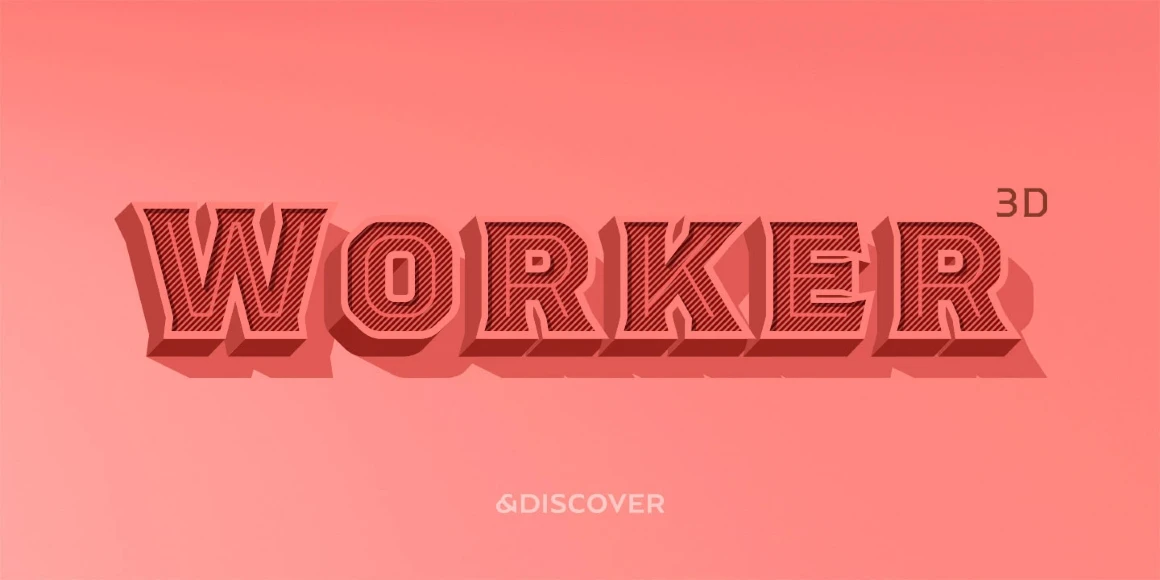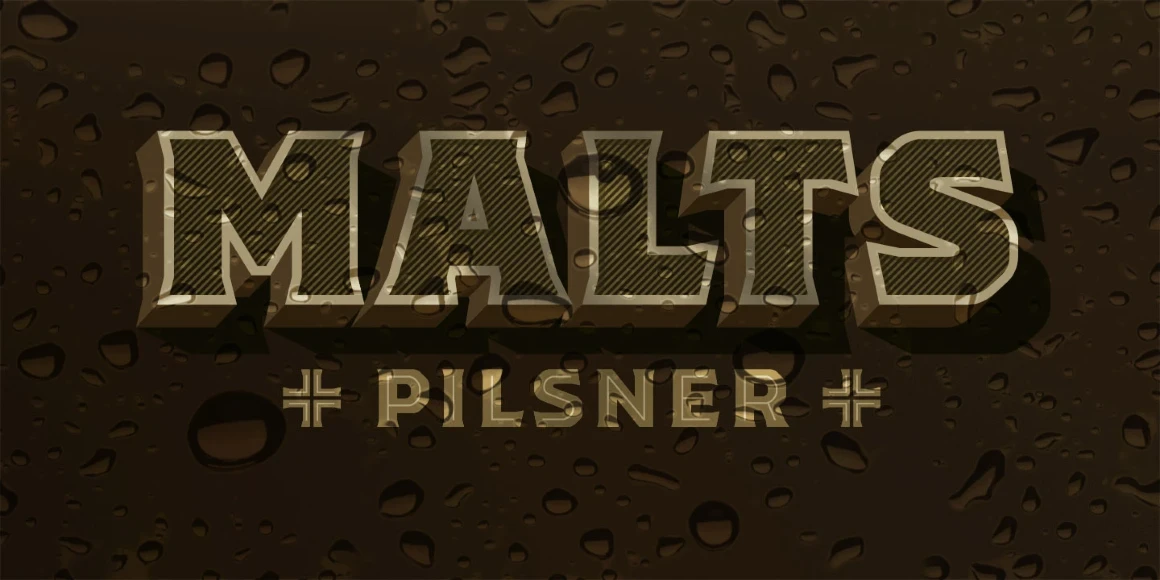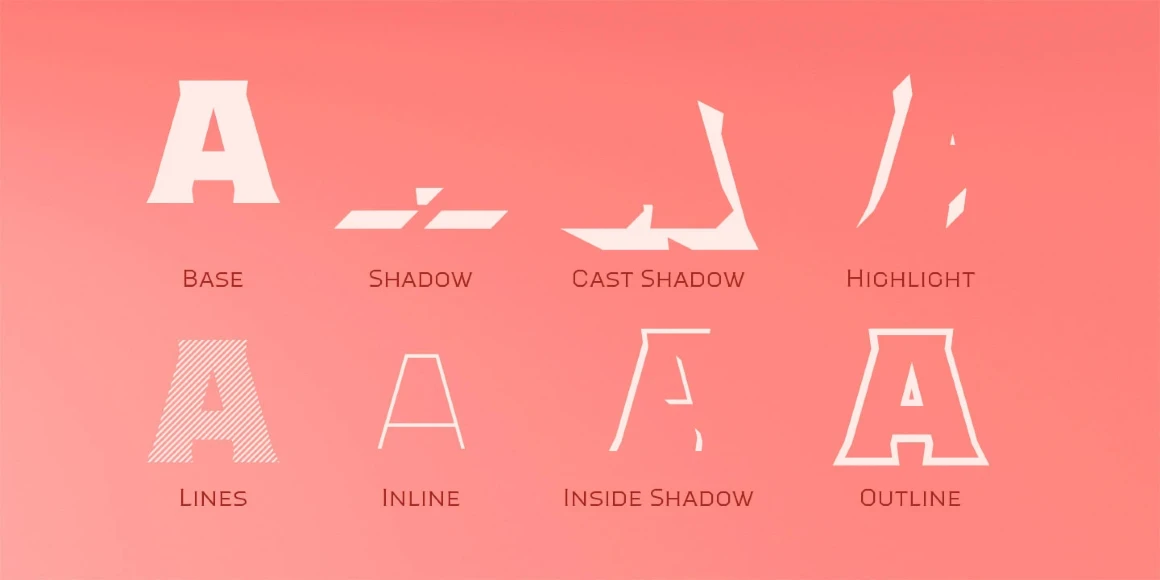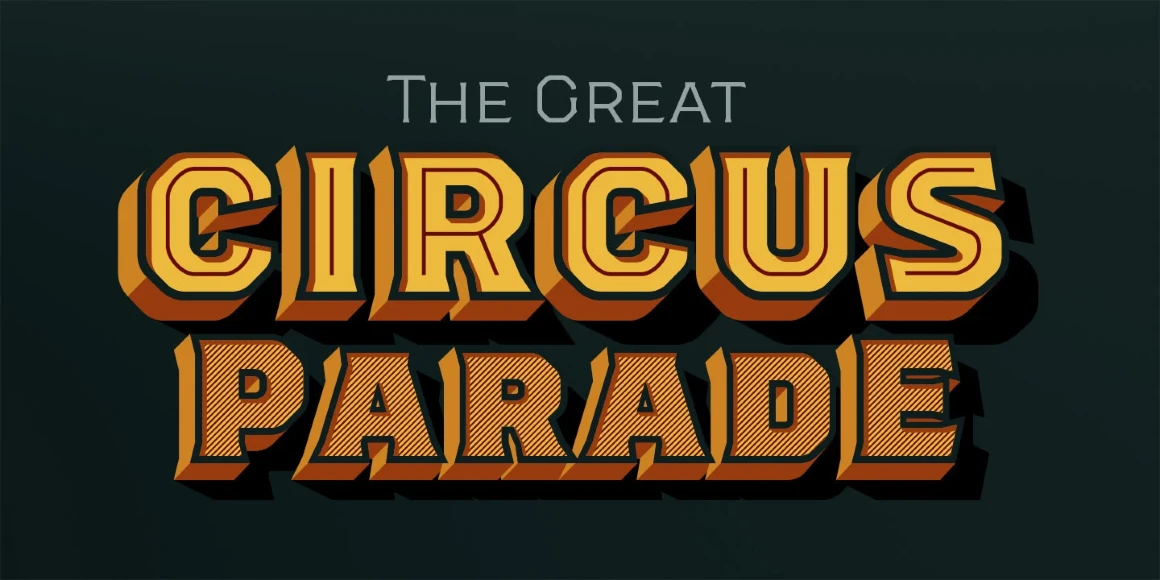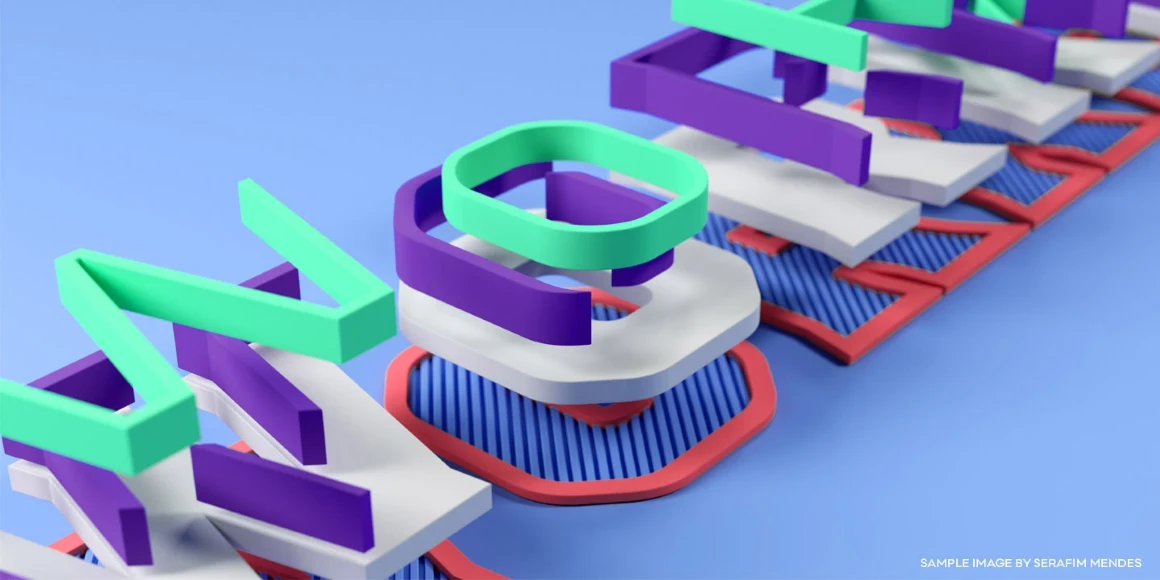
Worker 3D
From &DISCOVER
Worker 3D is the tridimensional version of Worker. The tridimensionality enhances the vintage feel of the original design. It has 8 different layers so there are plenty of possibilities, you can use all 8 layers at the same time or have a more sober look by just using some outline and shadow or some lines texture. You can create astounding lettering in a matter of seconds. Make great logos, eye-catching typographic posters, re-create vintage packaging, and much more.
Designed by Natanael Gama